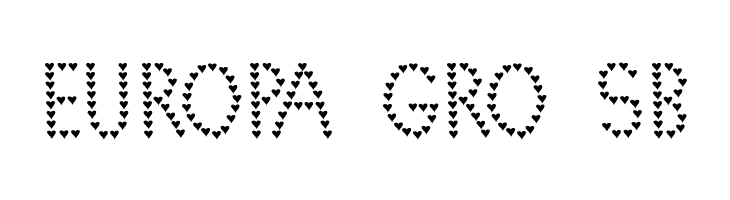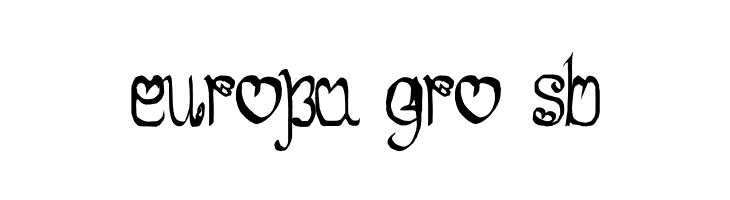
• MF Love Dings
A playful, heart-themed decorative font with whimsical symbols and expressions.
• Lovelica
A playful font made entirely of heart shapes, perfect for romantic themes.
• So Lovable
• DJB Shape Up Hearts
• KR Heart of Flowers
A decorative font with letters enclosed in floral heart shapes, offering a whimsical and romantic style.
• KR All Heart
A decorative font with intricate heart designs filled with unique patterns.
• KR Arrow Heart
A playful, heart-themed decorative font with bold letters and arrow accents.
• KR Love Letters
A bold, heart-themed decorative font with playful and romantic elements.
• KR Scribble Heart
A playful, decorative font with characters enclosed in scribbled hearts.
• KR All About The Heart
A decorative font with heart and floral motifs, ideal for romantic designs.